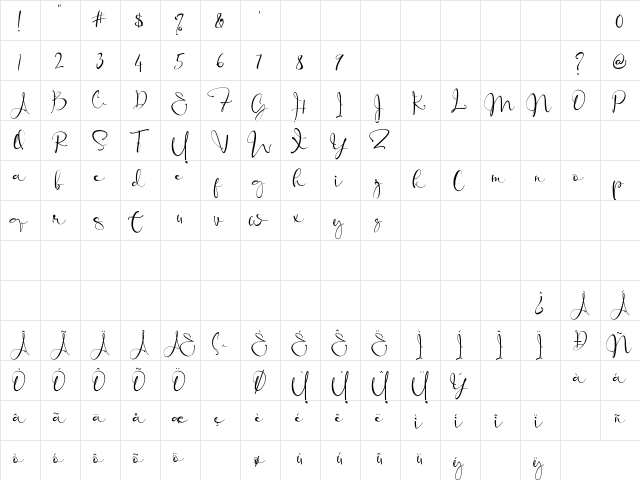
Banggar Regular
| Designer | Aldedesign 2018 |
Design Context for Banggar Typeface
Banggar is a composed and adaptable typeface that performs quietly and consistently across a wide range of design contexts.